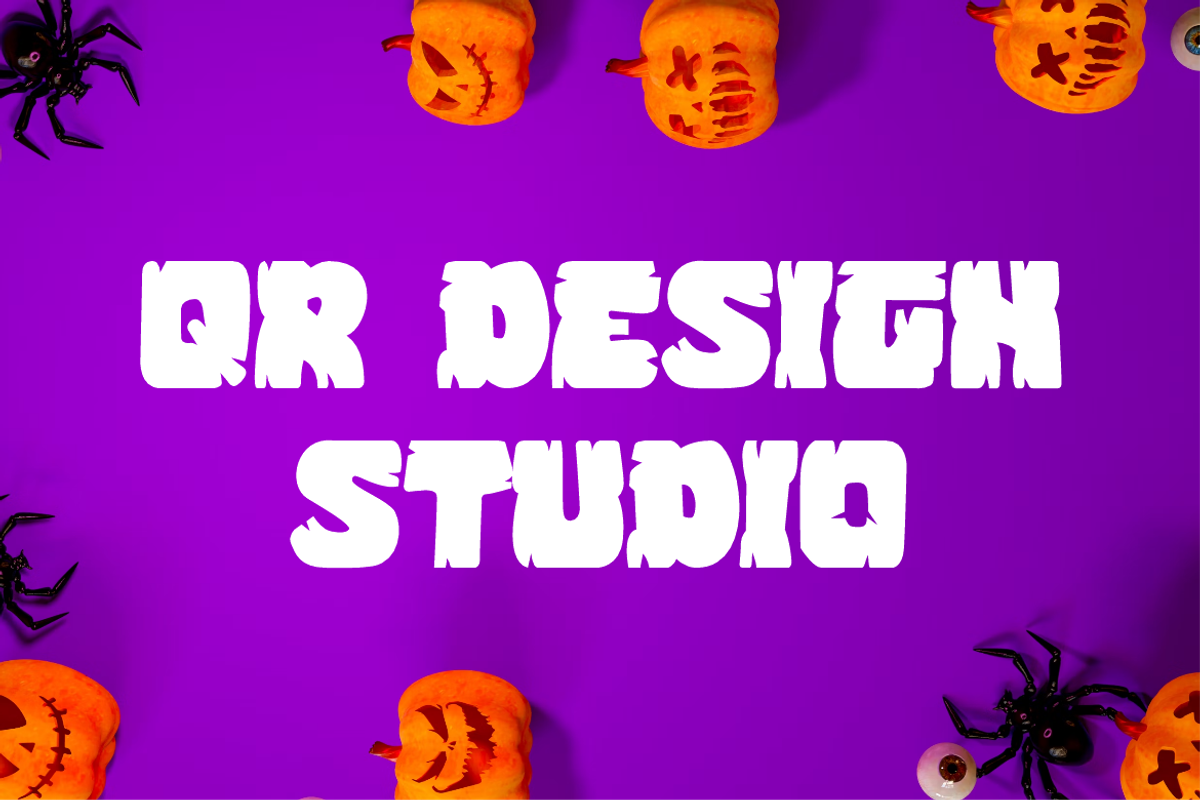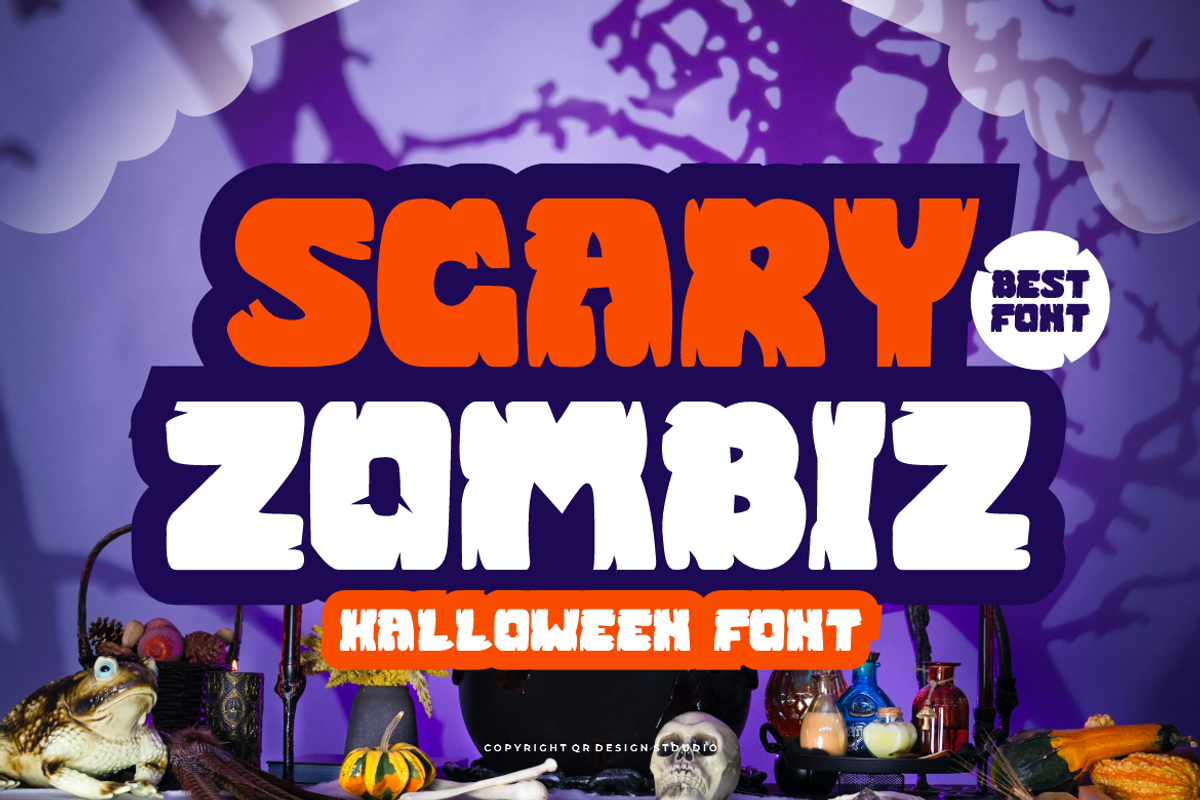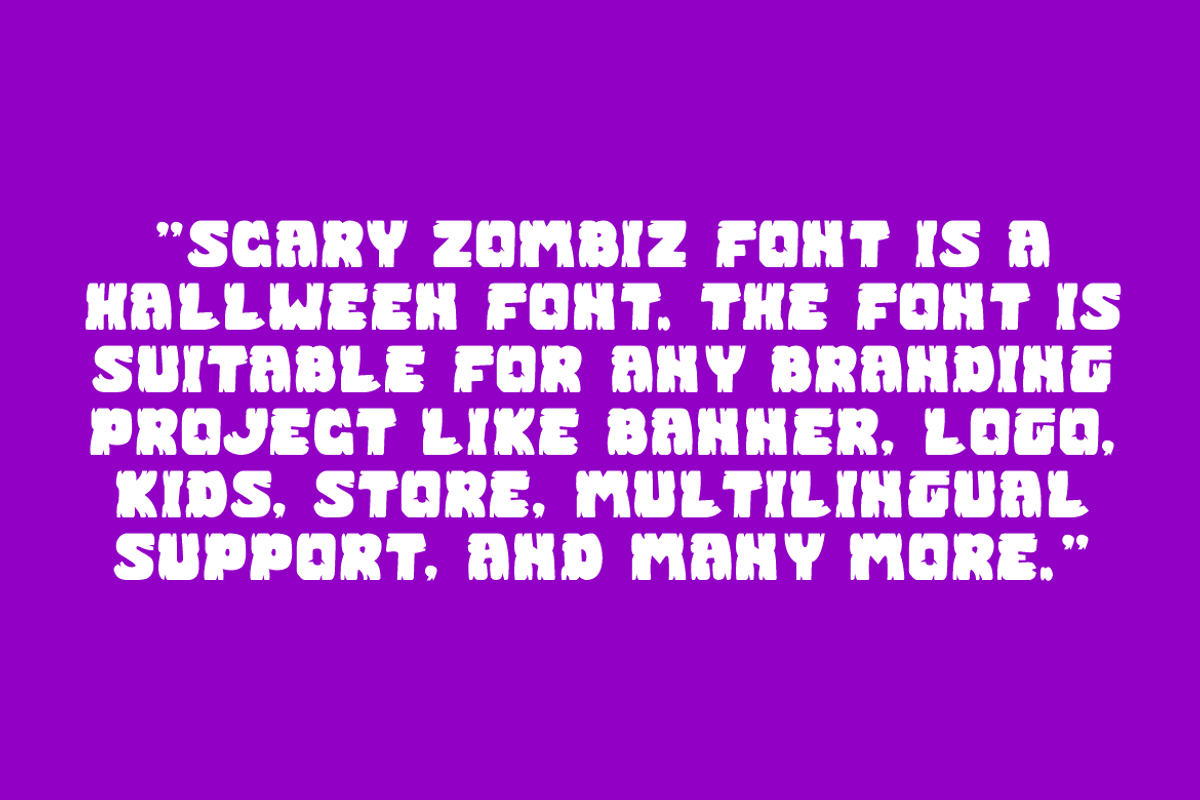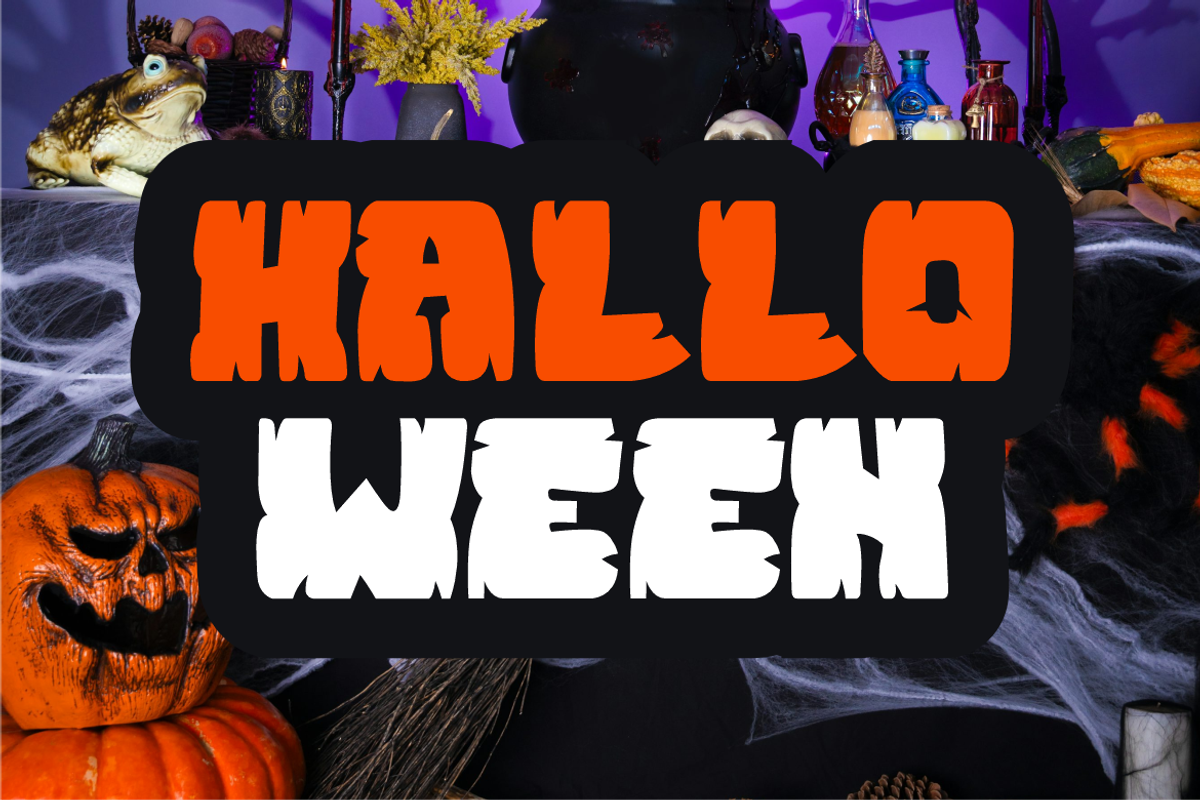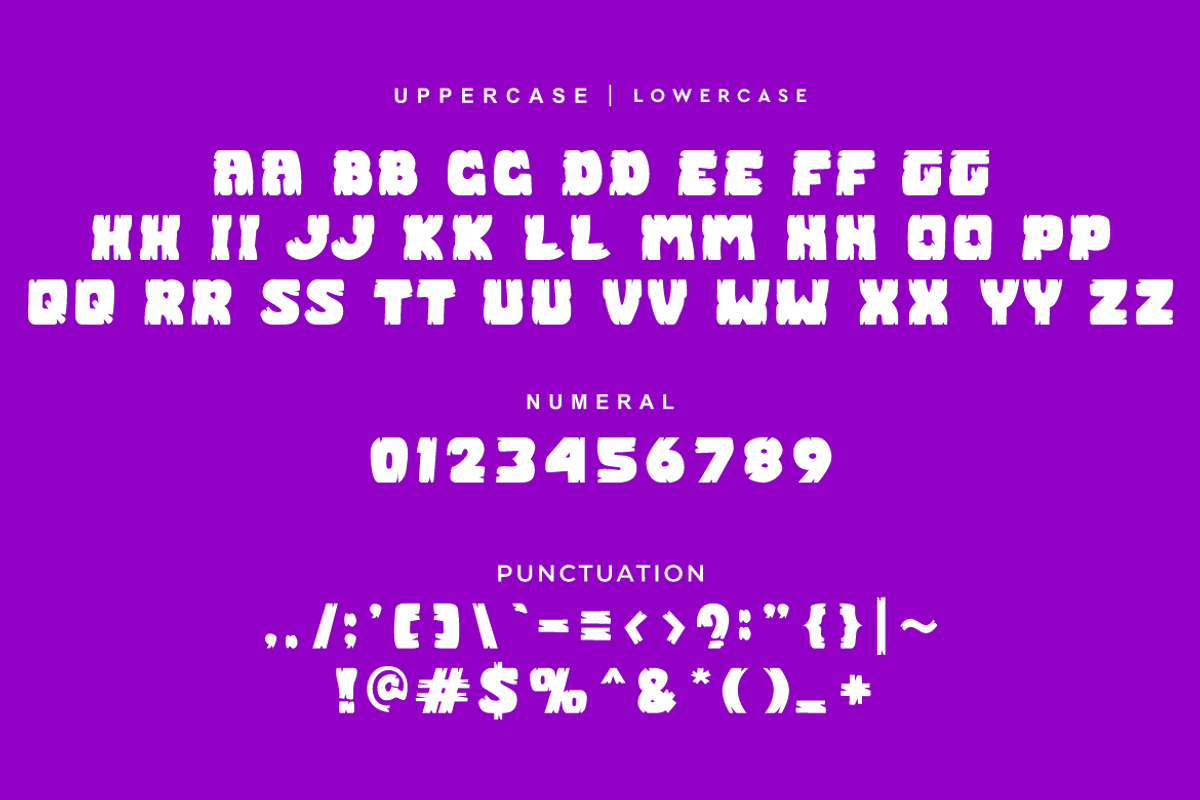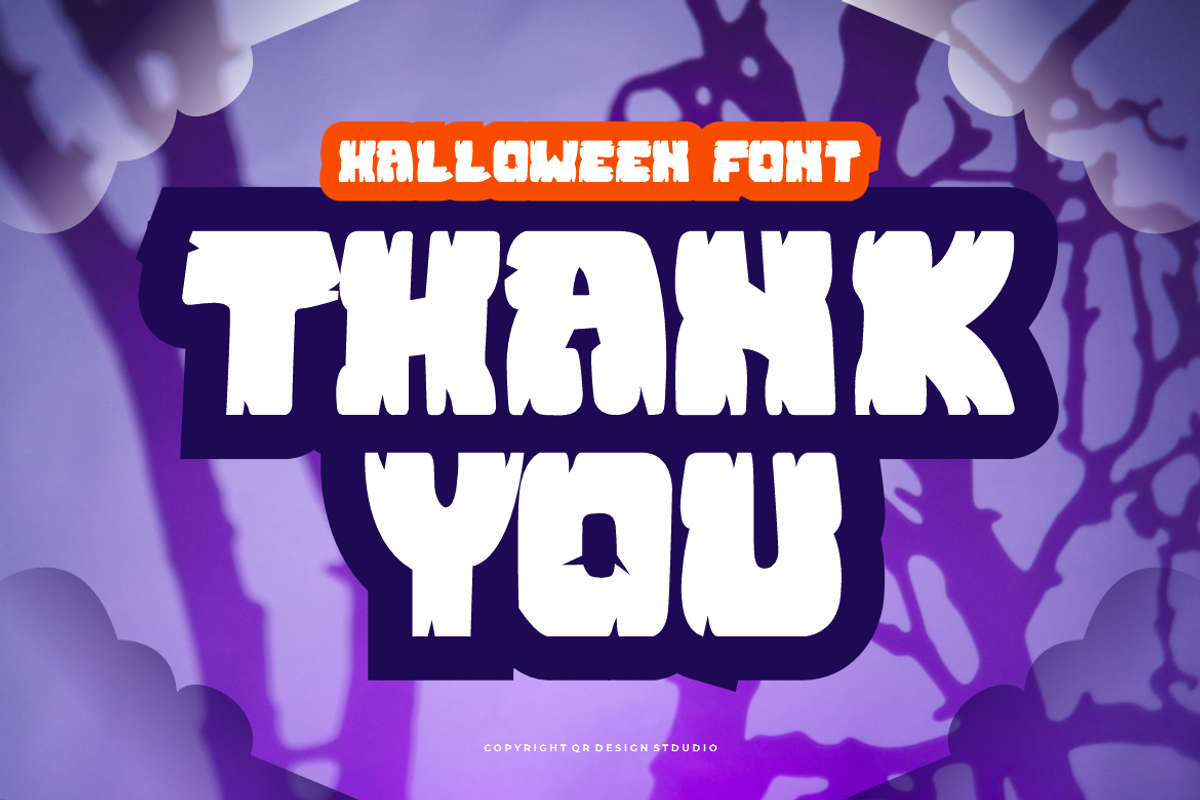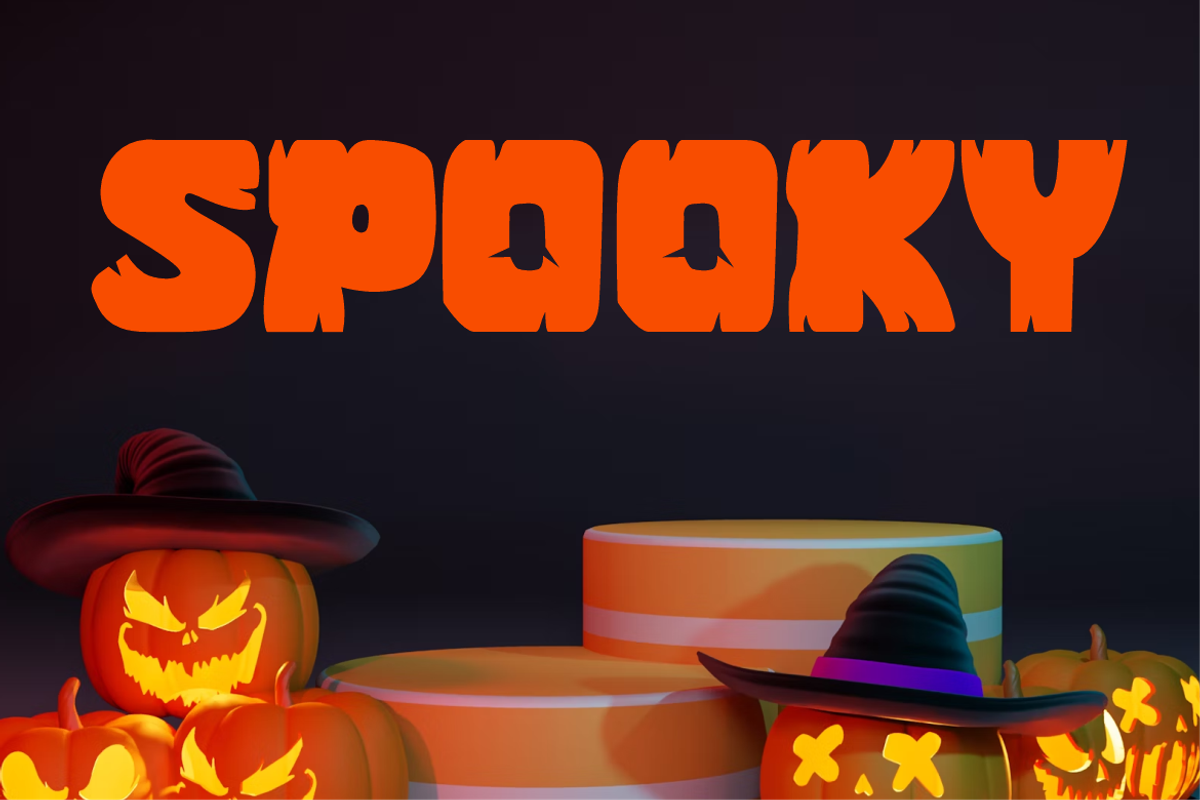
Scary Zombiz - Halloween Font
Scary Zombiz Font is a Halloween and authentic display font. The font is suitable for any branding project like poster, logo, sport, and many more. Outstanding in a wide range of contexts.